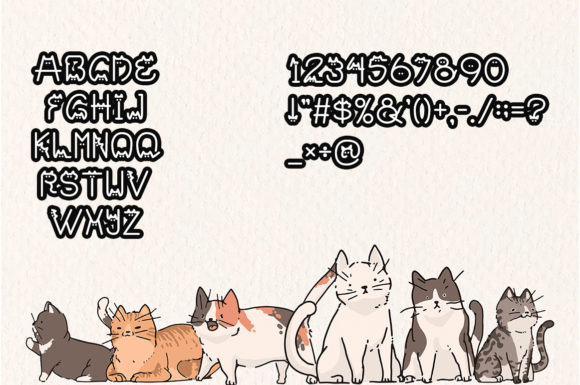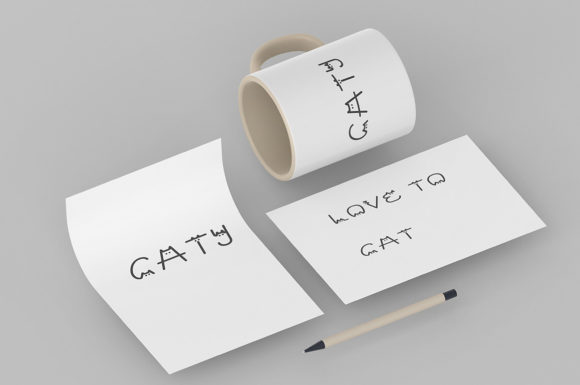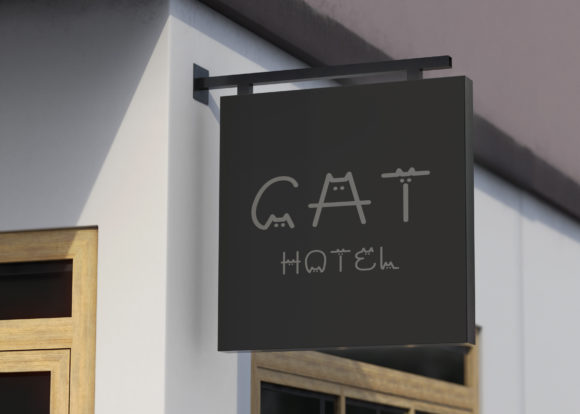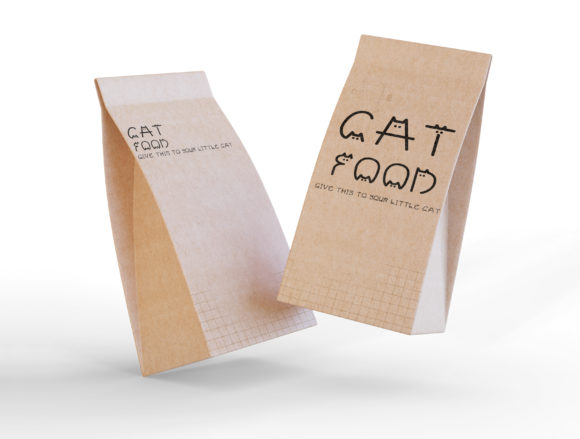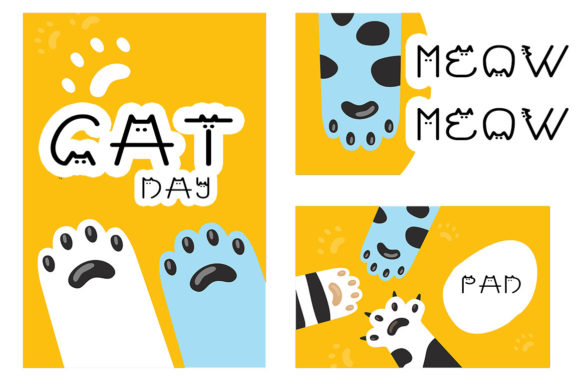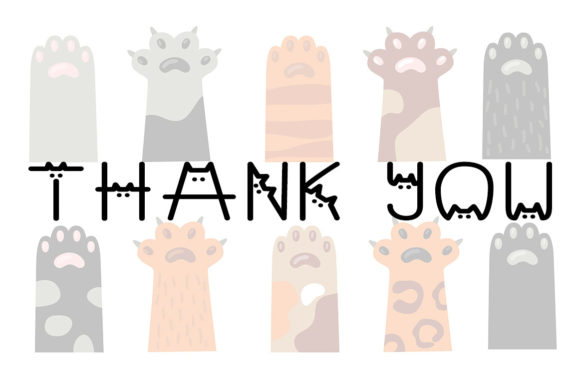
Introduction to Little Cat Font
Have you ever found yourself in the midst of a creative project, struggling to find the perfect font to bring your idea to life? You’ve scrolled through countless options, only to settle for something that’s just “good enough.” But then, like a ray of sunshine on a cloudy day, you stumble upon something that truly makes your heart skip a beat – the Little Cat Font.
This adorable display font is a game-changer for designers looking to add a touch of whimsy and playfulness to their high-quality designs. With its transparent background and cute, hand-drawn style, the Little Cat Font is the perfect design resource for any creative project, from children’s book covers to birthday party invitations.
Key Features of Little Cat Font
- High-quality design resource with a playful and cute aesthetic, perfect for creative projects.
- Features a small font size, making it ideal for use in titles, headings, and other design elements where space is limited.
- Unique characteristics include a whimsical and endearing design style, making it perfect for children’s books, nursery decor, and other related creative projects.
Honest Review: Little Cat Font
I recently stumbled upon the Little Cat Font and was excited to give it a try in my current design project. As a designer, I’m always on the lookout for high-quality design resources that can elevate my work.
What works well is that the Little Cat Font is a beautifully designed font that features adorable illustrations of cats in a playful, hand-drawn style. The transparent background makes it easy to overlay on different backgrounds, which is a huge plus for creative projects. The font is also free to download, which is a major bonus.
Some of the key features that I appreciated include:
- Adorable cat illustrations
- Transparent background for easy overlay
However, I do have to mention a few limitations: ⚠️ The font is only available in a limited set of sizes, which can be restrictive for certain design projects. Additionally, the illustrations can be a bit pixelated when scaled up.
Overall, I’m quite impressed with the Little Cat Font. While it may have some limitations, its charm and playfulness make it a great addition to any design project. I’d definitely recommend it to fellow designers looking for a fun and creative font.
Getting the Most Out of Little Cat Font
To get the most out of Little Cat Font, use it on a transparent background to create a seamless design. You can also combine it with other design resources for a unique and eye-catching look.
The Little Cat Font is perfect for various creative projects, including social media graphics, presentations, and documents. Its high-quality design and transparent background make it an ideal choice for designers and non-designers alike.